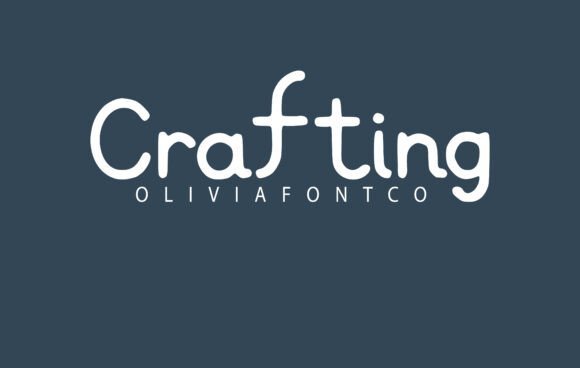
The Perfect Brush Stroke: Crafting Font
Have you ever been stuck in a creative rut, staring at a blank page, and suddenly, a single handwritten word sparks an entire world of ideas? For designers, that ‘aha’ moment is what drives us to push the boundaries of creativity. And for those who crave a touch of authenticity in their designs, we’re excited to introduce the Crafting Font – a beautiful, handwritten font that will elevate your work to new heights.
Expertly designed to capture the essence of a romantic, handwritten touch, Crafting Font is perfect for designers looking to add a personal and unique flair to their projects. Whether you’re working on magazine headlines, social media campaigns, branding, wedding invitations, or cards, this versatile font is sure to leave a lasting impression. With its legibility and charm, Crafting Font is a valuable addition to any designer’s toolkit.
Crafting Font Key Features
- Unique Characteristics: The font features a unique, hand-crafted design with intricate details and subtle nuances, giving it a distinctive and elegant look.
- Character Set: Crafting Font includes a comprehensive character set, including Latin, Cyrillic, and Greek alphabets, as well as a range of punctuation marks and symbols.
Crafting Font Review
Overall, I’m quite impressed with Crafting Font, but as with any font, there are some areas where it shines and others where it falls short. ✨ Here are my thoughts on what works well:
- Unique Character: Crafting Font has a distinctive, handmade feel that sets it apart from other fonts. It’s perfect for designers looking to add a touch of personality to their work.
- Customization Options: The font comes with a range of customization options, including ligatures, swashes, and alternate characters. This makes it easy to create unique and varied typography.
- High-Quality Glyphs: The font’s glyphs are well-crafted and high-quality, making it a pleasure to work with.
Of course, no font is perfect, and Crafting Font has its limitations. ⚠️ Here are a few areas where it falls short:
- Limited Font Sizes: The font is best suited for larger font sizes, as it can become pixelated at smaller sizes.
- No True Italic: While the font has a range of italic options, they don’t quite match the quality of the regular font.
- Some Characters May Not Render Correctly: In some cases, certain characters may not render correctly, particularly at smaller font sizes.
Overall, I’d give Crafting Font 4 out of 5 stars. It’s a beautiful, unique font that’s perfect for designers looking to add some personality to their work. However, it’s not without its limitations, so be sure to test it thoroughly before committing to a project.
Crafting Font is ideal for creating rustic, vintage, or handmade-inspired designs. Use it for:
- Retro-themed posters and graphics
- Handmade product labels and packaging
- Custom quotes and typography-based designs